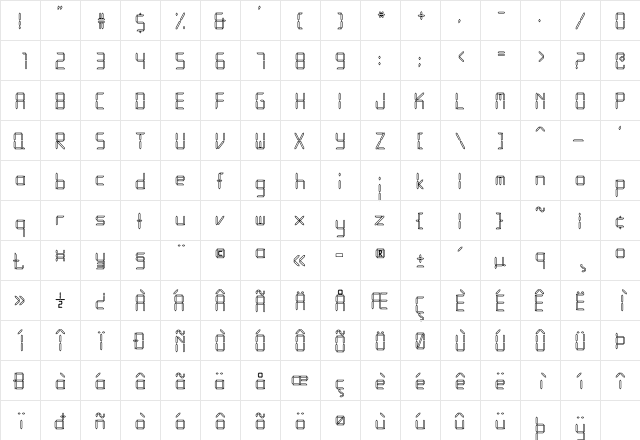
Calculator Ho Regular
Design Context for Calculator Ho Typeface
Calculator Ho takes a measured approach to typography — its balanced proportions and neutral character make it a reliable workhorse for both digital and print work.